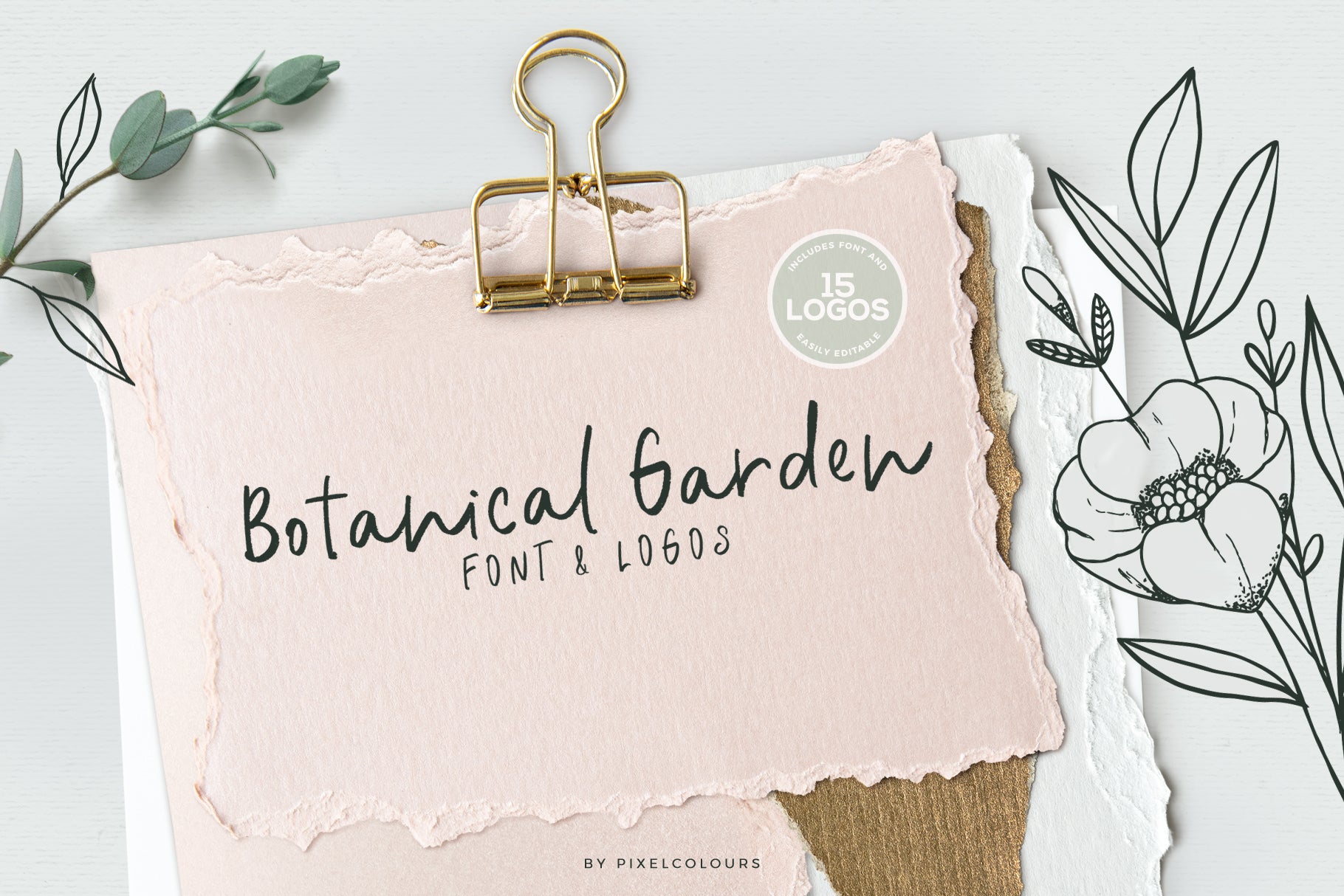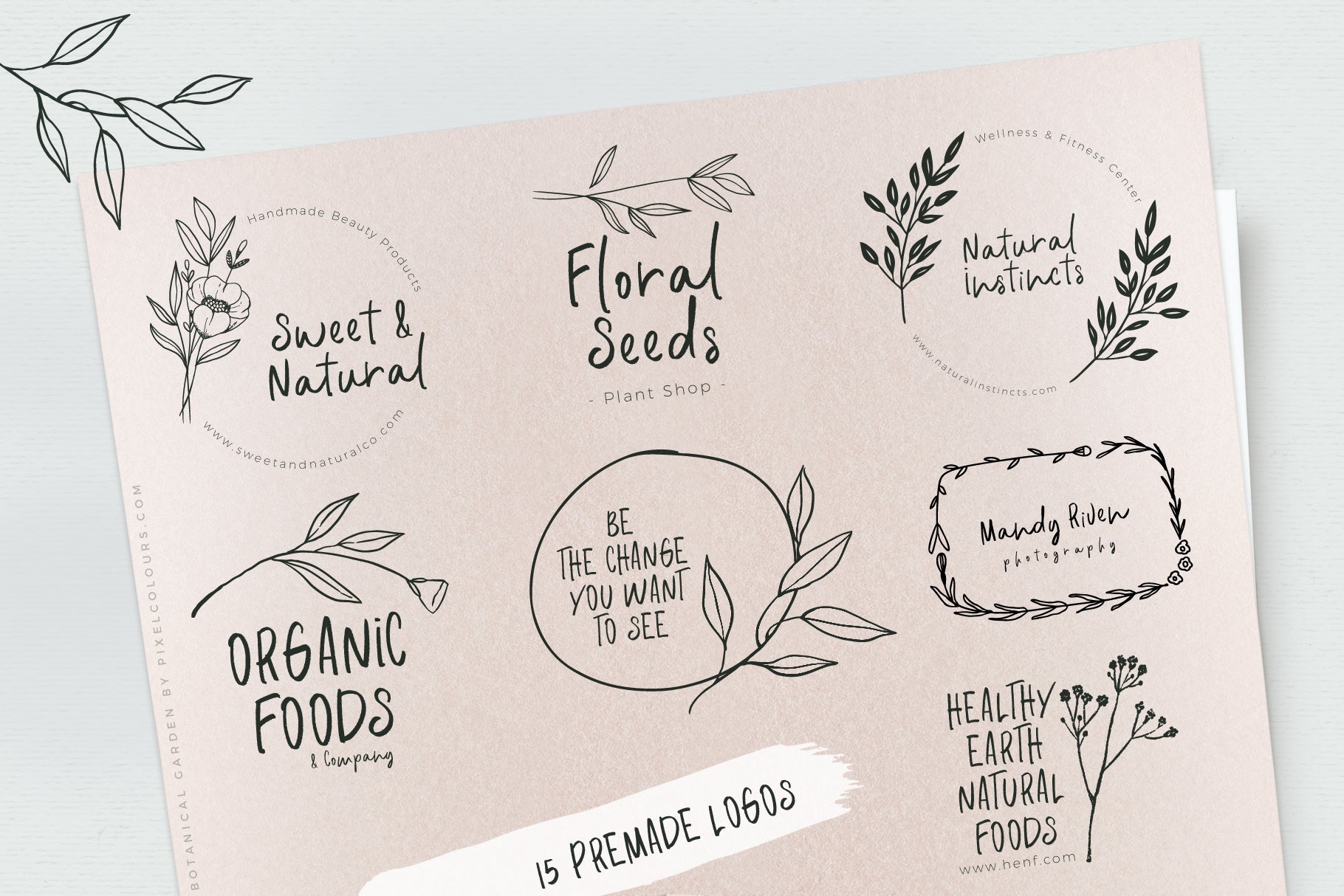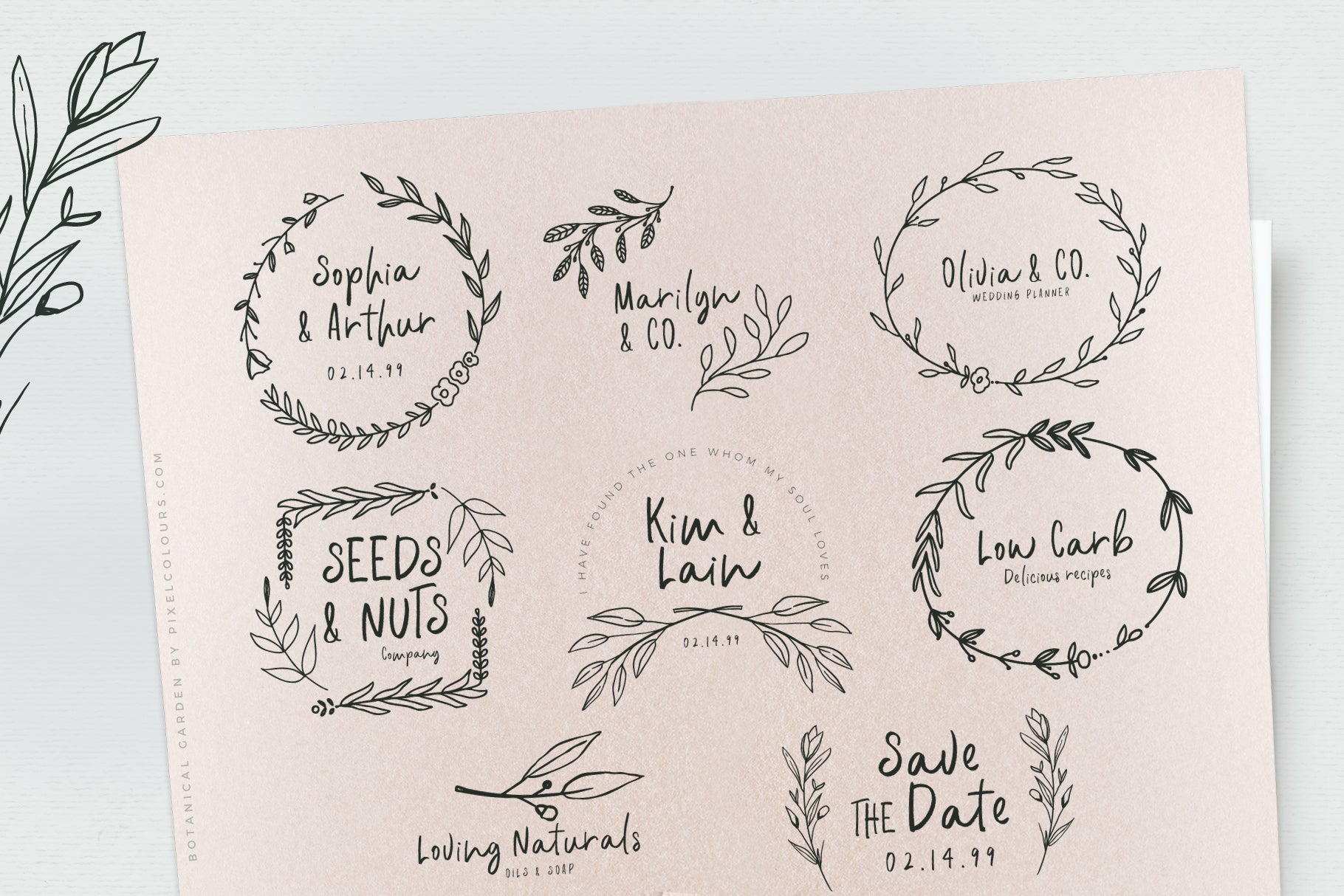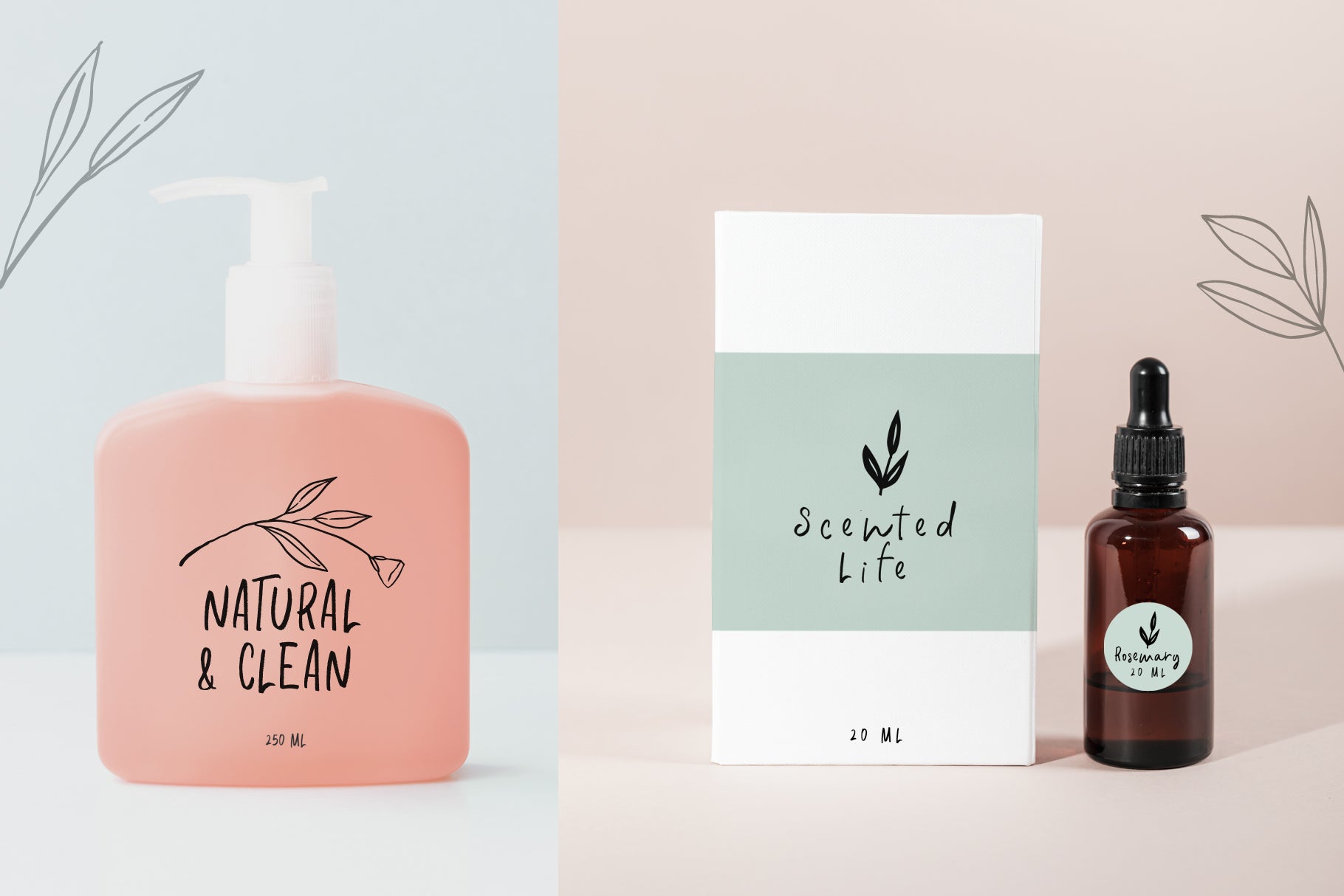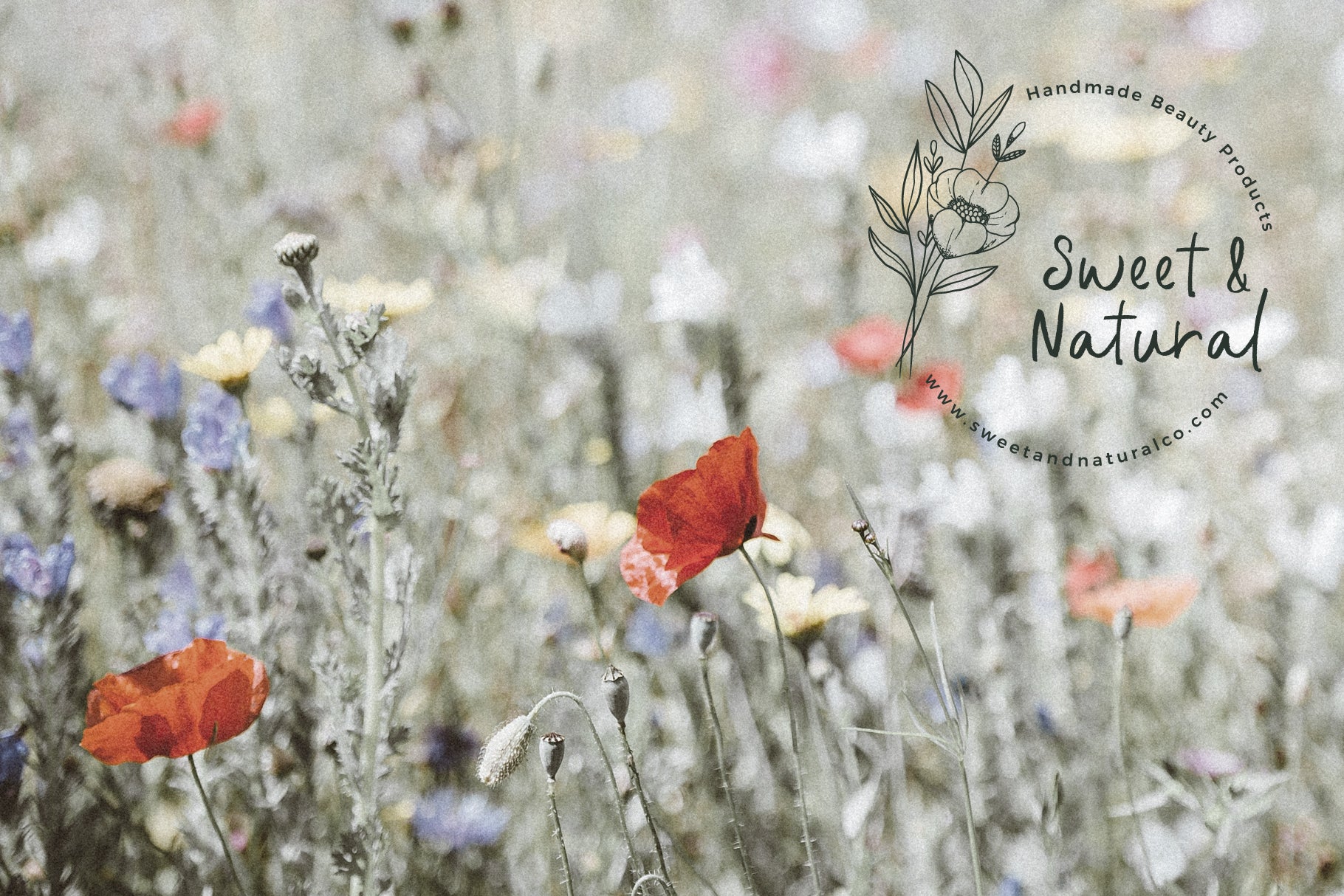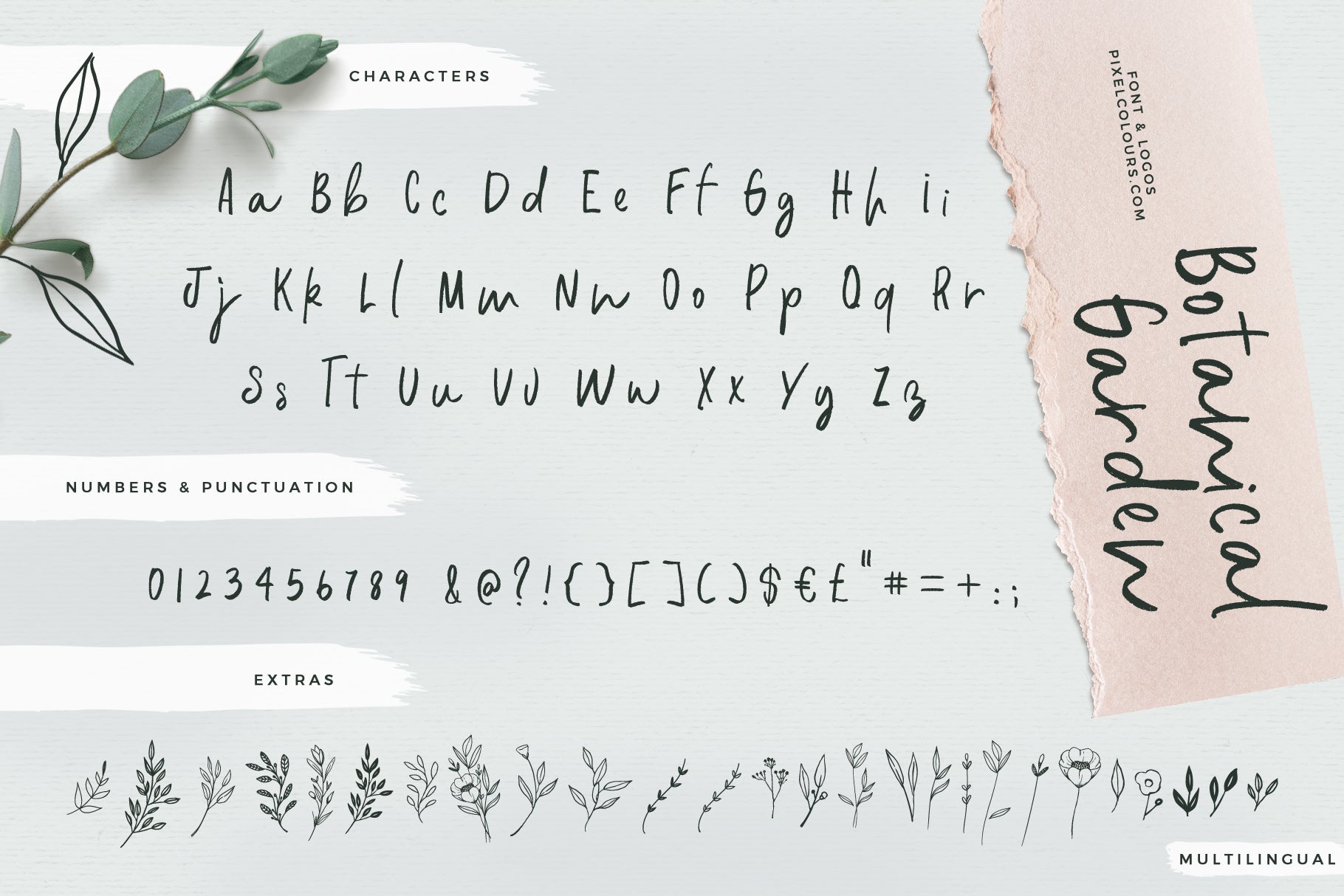
Botanical Garden Font and Logos
Botanical Garden is a sweet font duo that includes a script font and a decorative font with botanical illustrations great for creating logos, quotes, and floral compositions for any project!
Logos
Includes 15 premade logo templates that you can easily edit just by adding your information.
Botanical Extras
Create your own compositions or logos from scratch with the botanical vectors.